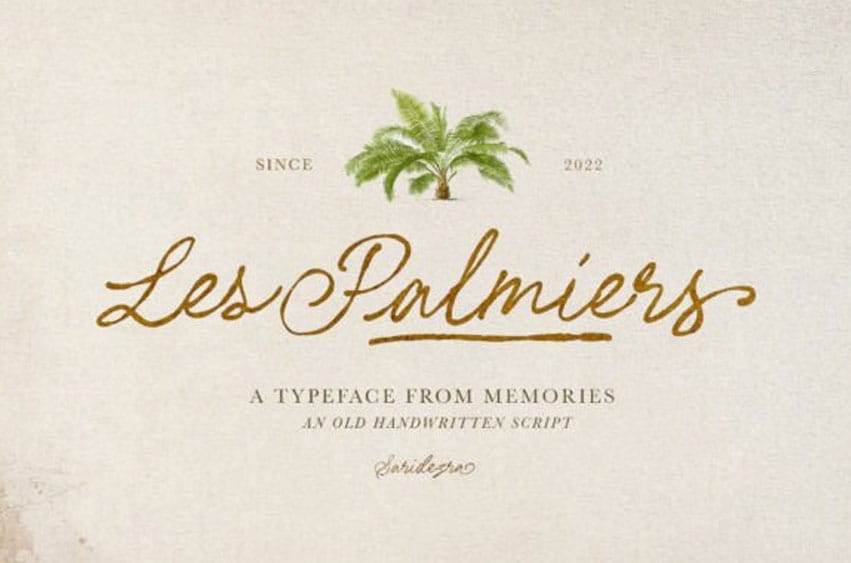
Les Palmiers Font is a vintage, rough, handwritten script. This stylish, unique, and elegant font can easily become your favorite.
It can be used for books, magazine covers, social media posts, invitations, and so much more! So add this to your creations and take your designs to the next level!